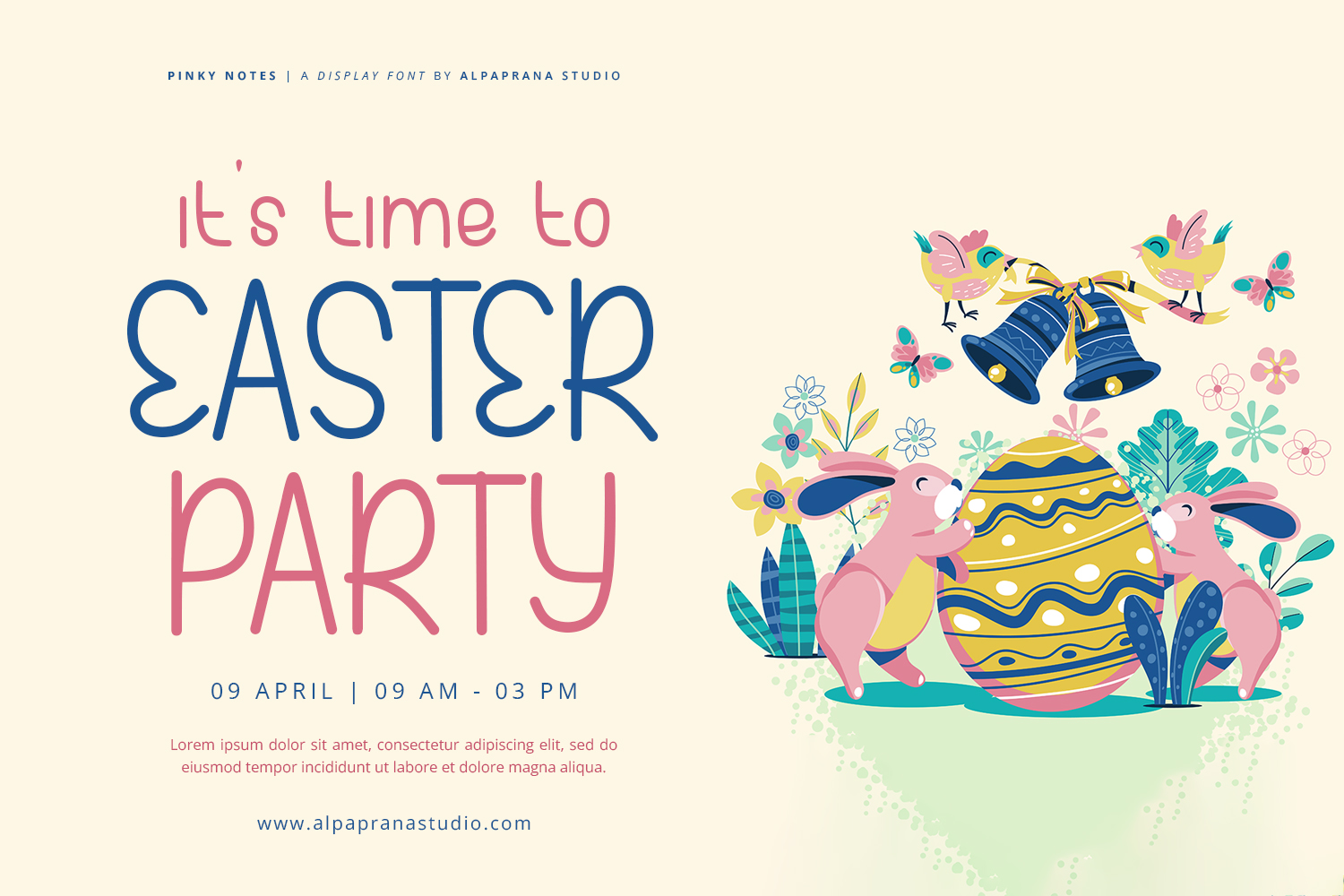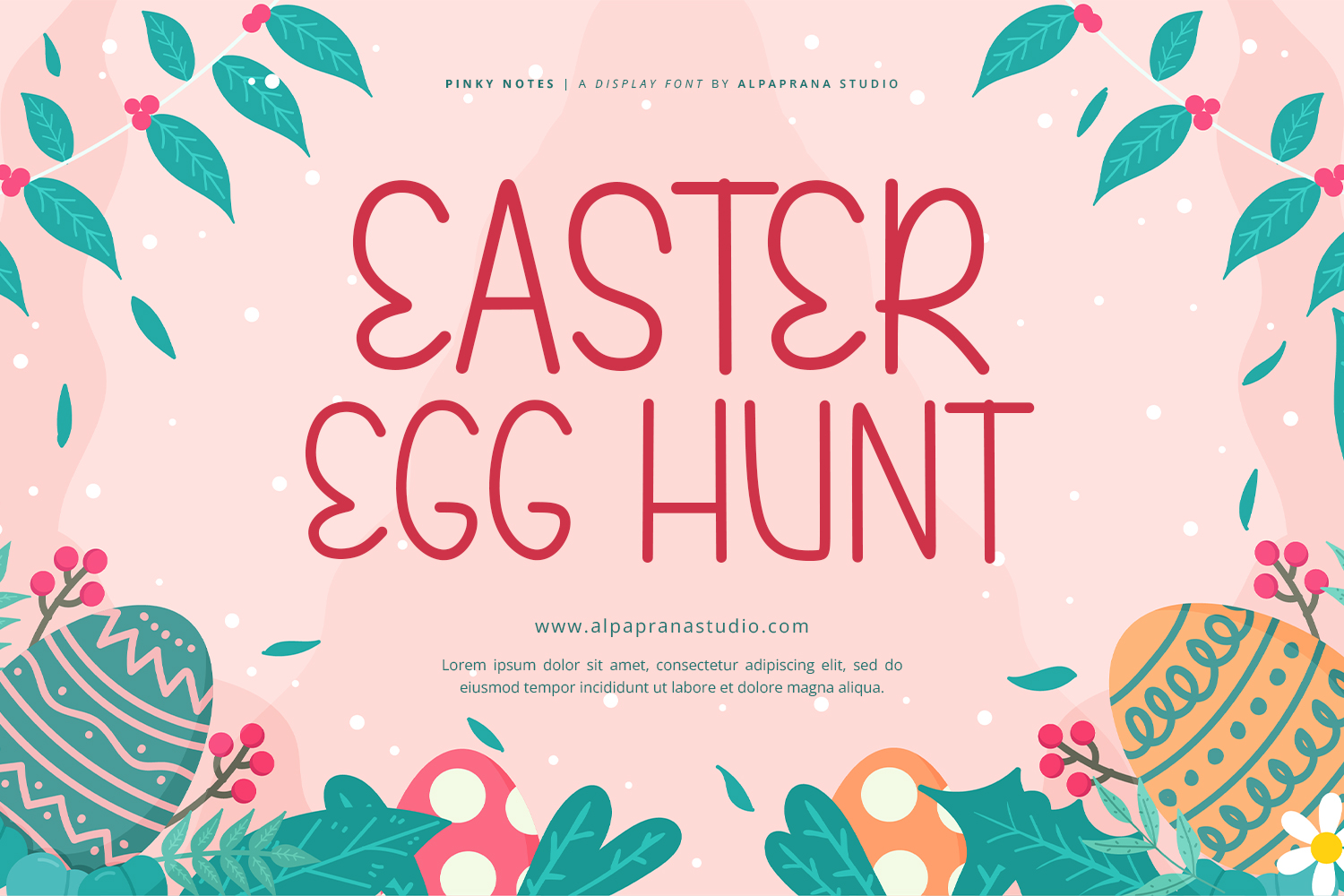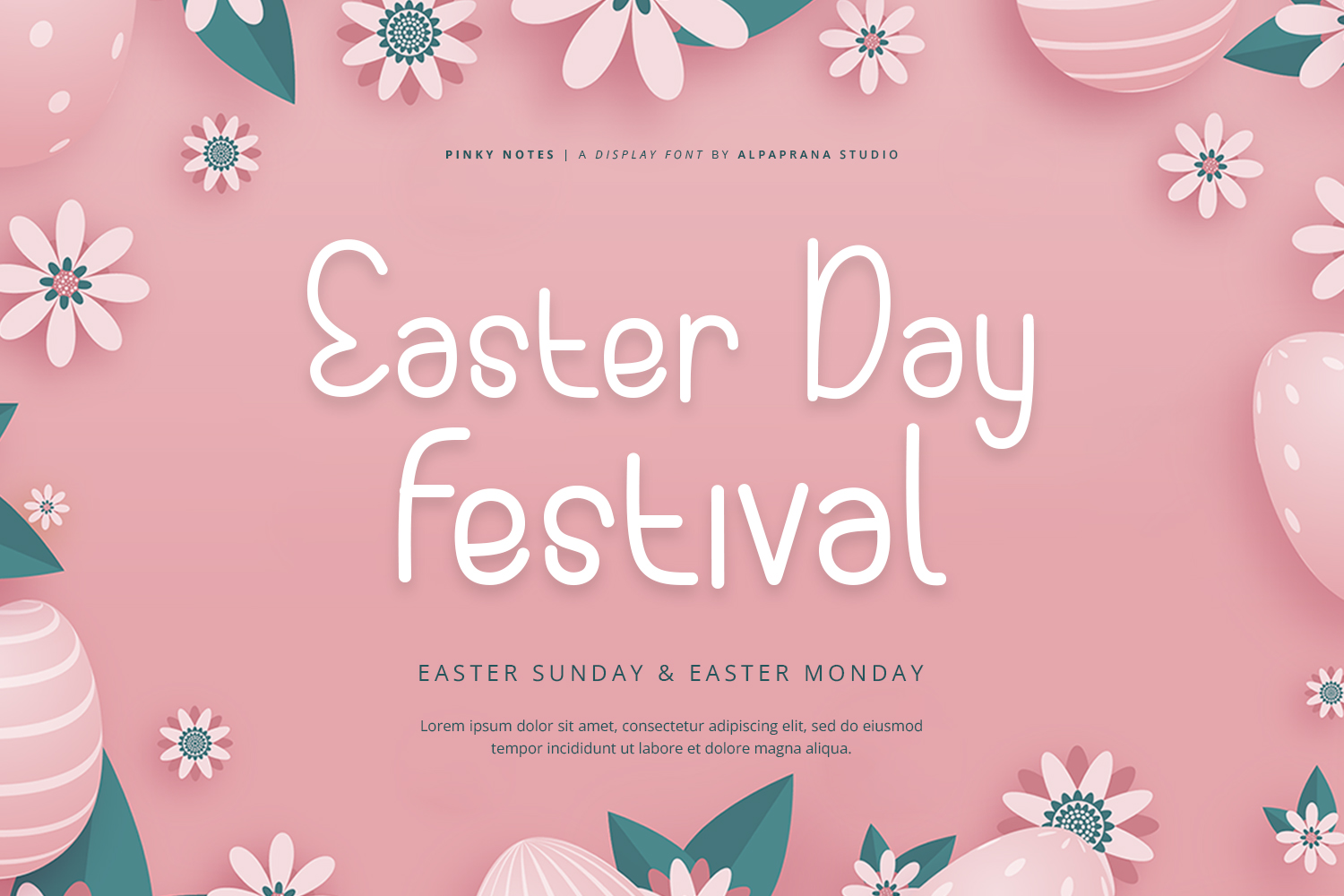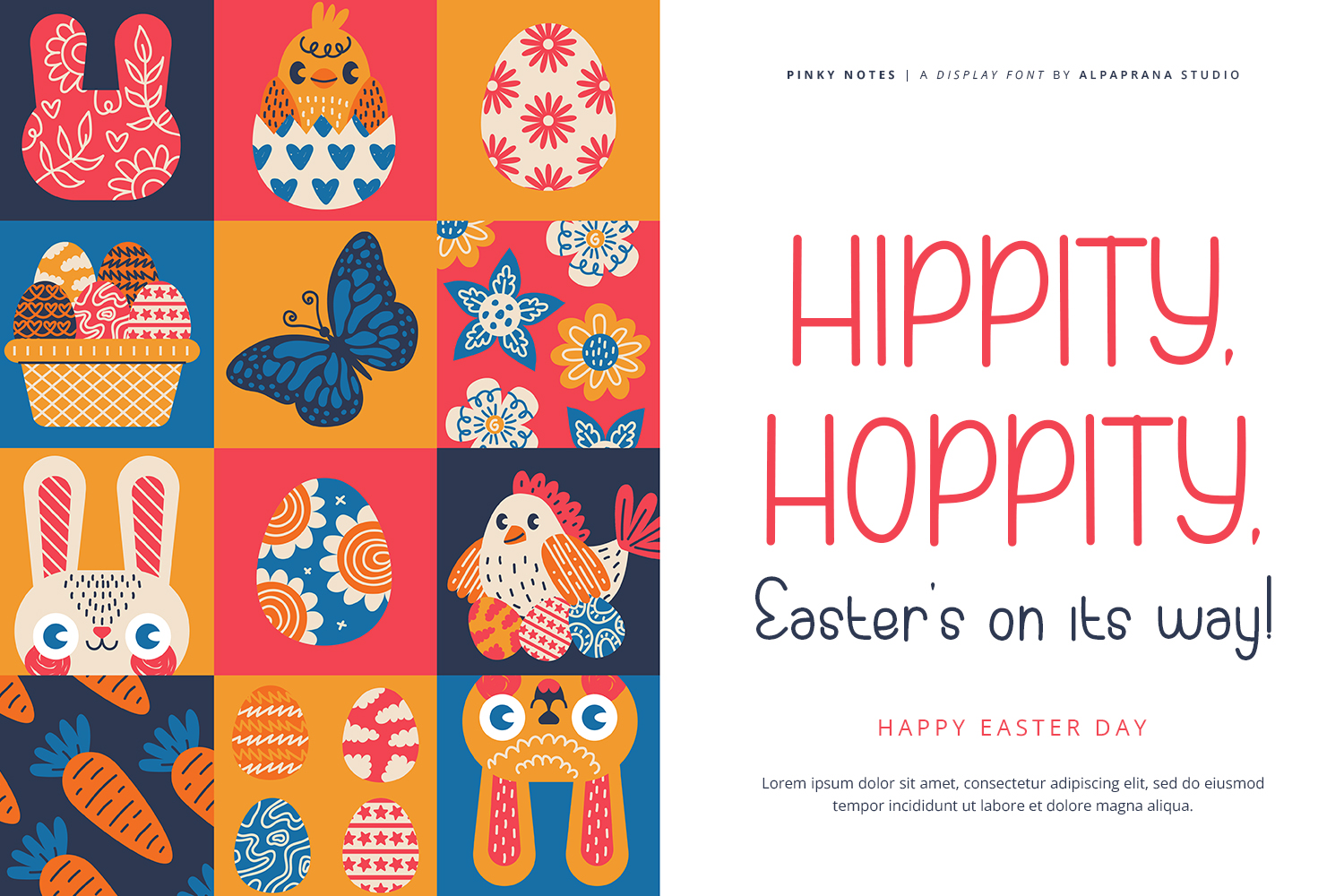
Pinky Notes Free Font
Pinky Notes Free Font is a display font with cute and playful feels. Whether you’re using it for crafts, digital design, presentations, or making greeting cards, this font has the potential to become your favorite go-to font, no matter the occasion. This free typeface was designed by a talentedΒ Alpaprana Studio. If you like it don’t forget to check out the full version.